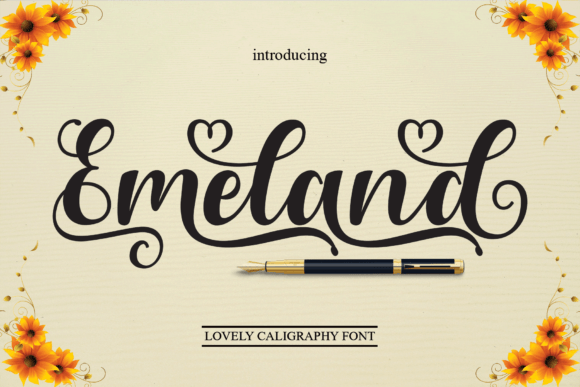
Introducing Emeland Font: Elevate Your Design with Elegance
In the world of typography, a font can make all the difference in the aesthetic and effectiveness of a design. For those seeking a simple yet classy handwritten font, Emeland Font is an exceptional choice. This elegant, easy-to-read, stylish, attractive, and user-friendly font is perfect for a wide range of applications, from watermarks on photography to signatures, logos, quotes, album covers, business cards, and much more. In this article, we’ll delve into the features and benefits of Emeland Font, exploring how it can elevate your work to the highest level.
Key Features of Emeland Font
- Elegant and Easy to Read: Emeland Font boasts a sophisticated, cursive style that is both refined and highly legible, making it suitable for various design projects.
- Stylish and Attractive: Its unique charm and character make it stand out, adding a touch of personality to any design.
- Easy to Use: Designed with user-friendliness in mind, Emeland Font can be effortlessly incorporated into your projects, saving you time and effort.
Versatile Applications of Emeland Font
One of the significant advantages of Emeland Font is its versatility. Its range of applications is vast, making it a valuable asset for designers, artists, and businesses alike. Here are some of the areas where Emeland Font truly shines:
- Watermarks on Photography: Adding a professional touch to your photographs, Emeland Font allows you to create elegant watermarks that enhance rather than overshadow your images.
- Signatures: Whether you’re looking to add a personal touch to your emails or create a unique signature for your business, Emeland Font provides the perfect blend of elegance and individuality.
- Logos: For businesses aiming to establish a strong brand identity, Emeland Font can be used to craft distinctive and memorable logos.
- Quotes and Album Covers: The font’s stylish and attractive nature makes it ideal for typographic quotes and album covers, adding an artistic flair to your projects.
- Business Cards: Stand out in professional settings with beautifully designed business cards featuring Emeland Font, conveying a sense of sophistication and attention to detail.
The Benefits of Using Emeland Font
Choosing Emeland Font for your design projects comes with numerous benefits that can significantly enhance your work:
- Enhanced Aesthetic Appeal: With its elegant and stylish appearance, Emeland Font can elevate the visual appeal of your designs, making them more engaging and impactful.
- Improved Readability: The font’s emphasis on readability ensures that your message is conveyed clearly and effectively, which is crucial for communication.
- Versatility: Its wide range of applications means you can use Emeland Font across various projects, making it a valuable addition to your design toolkit.
Tips for Getting the Most Out of Emeland Font
To maximize the potential of Emeland Font, consider the following tips:
- Experiment with Sizes and Colors: Don’t be afraid to play around with different sizes and colors to find the perfect combination that suits your design.
- Pair with Complementary Fonts: For projects requiring multiple fonts, choose fonts that complement Emeland Font’s style to maintain a cohesive look.
- Utilize Glyphs and Swashes: Take full advantage of the PUA encoding by incorporating glyphs and swashes to add uniqueness and flair to your designs.
Emeland Font stands out as a versatile, elegant, and user-friendly handwritten font suitable for a myriad of design applications. Its combination of readability, style, and ease of use makes it an excellent choice for designers and businesses looking to add a touch of sophistication to their work. Whether you’re creating watermarks, logos, quotes, or business cards, Emeland Font has the potential to elevate your designs to new heights. By incorporating Emeland Font into your projects, you’re not just choosing a font; you’re opting for a design solution that brings elegance, clarity, and creativity to the forefront.